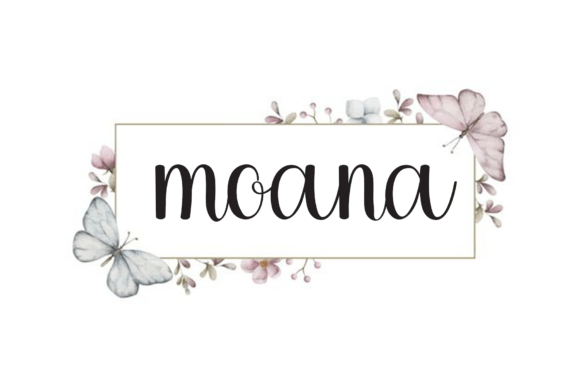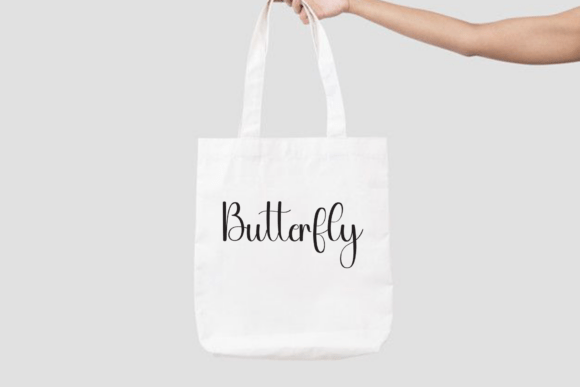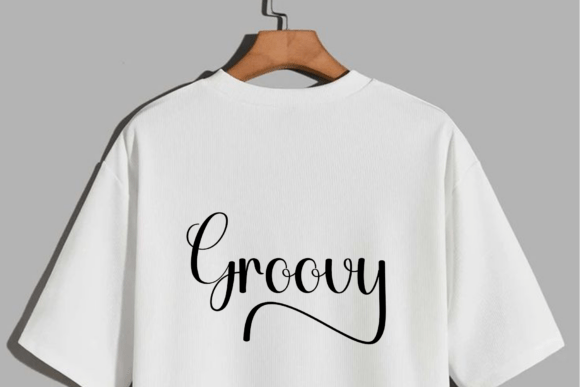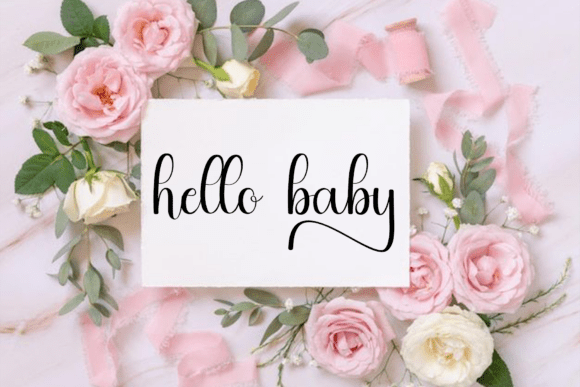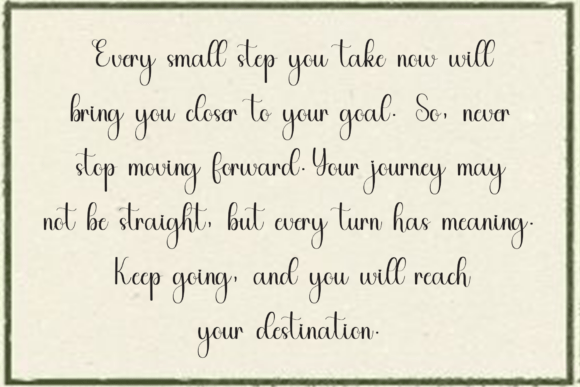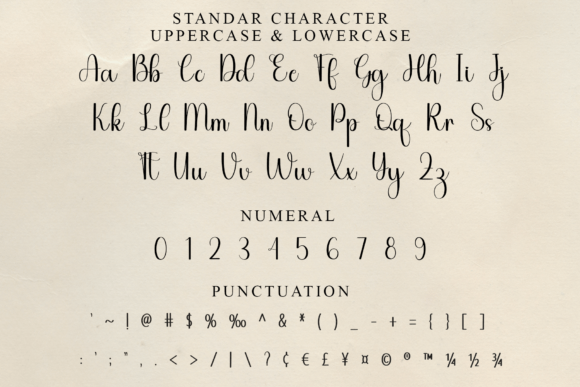
Introduction to Lovely Morning Font
Lovely Morning is a casual and creative font that exudes warmth and friendliness.
Key Features of Lovely Morning Font
Why Choose Lovely Morning Font?
Lovely Morning Font offers exceptional quality and versatility, making it a valuable addition to your design toolkit. Whether you’re creating for personal projects or commercial use, Lovely Morning Font delivers professional results.